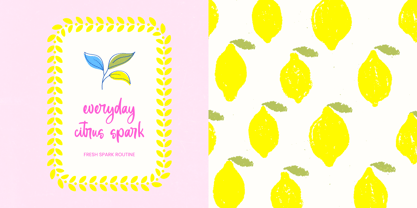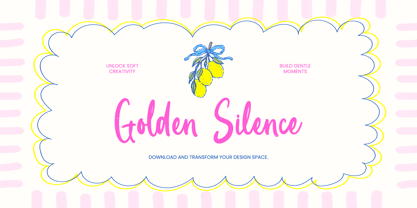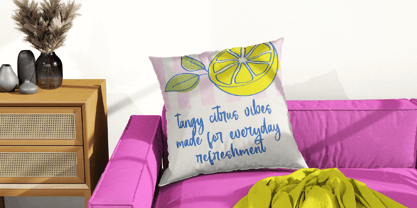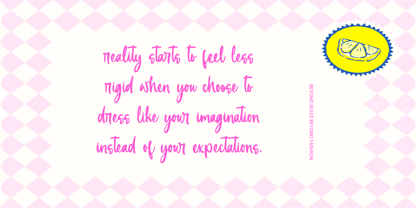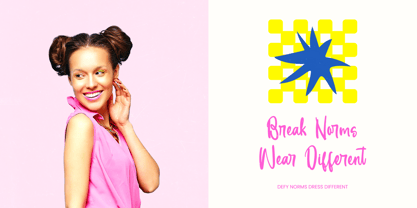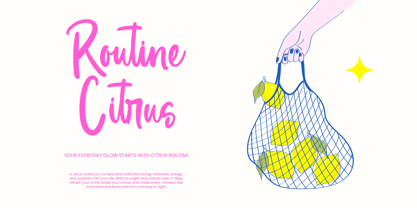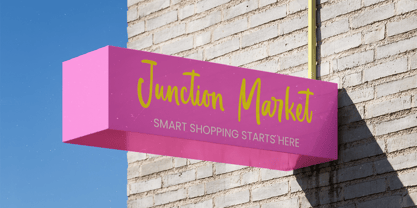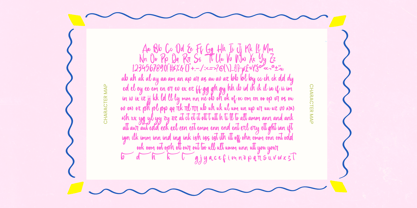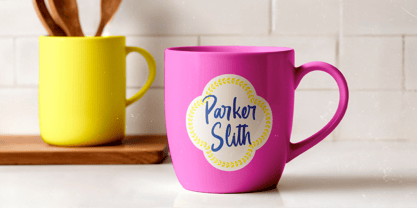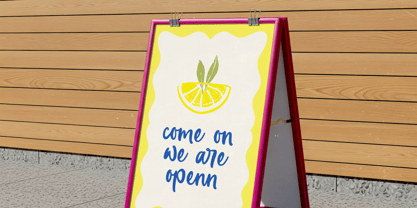
Golden Silence
by Letterena Studios
The Golden Silence Font Family was designed by Heru Utama Putra and published by Letterena Studios. Golden Silence contains 2 styles and family package options. More about this family
Golden Silence - Sticky Notes & Quotes
Elevate your creative vision with the charming and authentic aesthetic of Golden Silence - Sticky Notes & Quotes. This premium handwritten script font is meticulously designed to provide a natural, organic feel that captures the essence of personalized penmanship. Featuring an impressive collection of 166 ligatures and 26 alternates, Golden Silence - Sticky Notes & Quotes ensures that every word looks unique and flows with effortless grace, making it a standout choice for designers seeking artistic flair and professional polish.